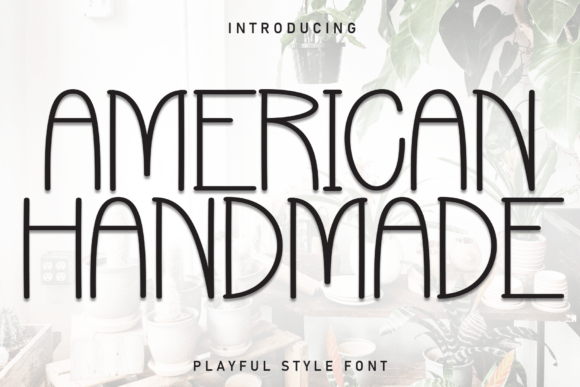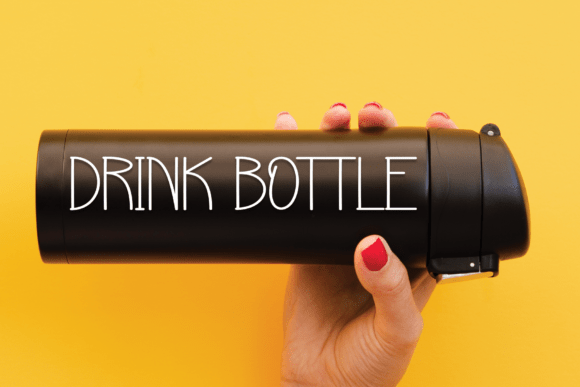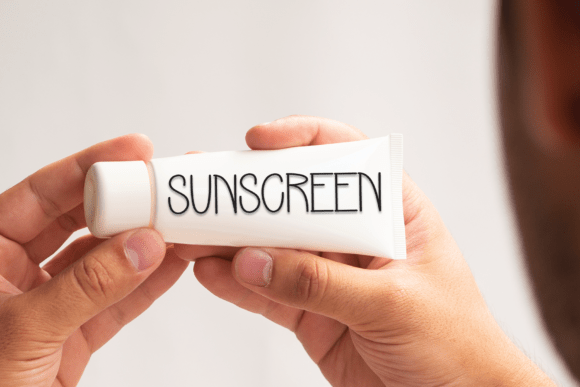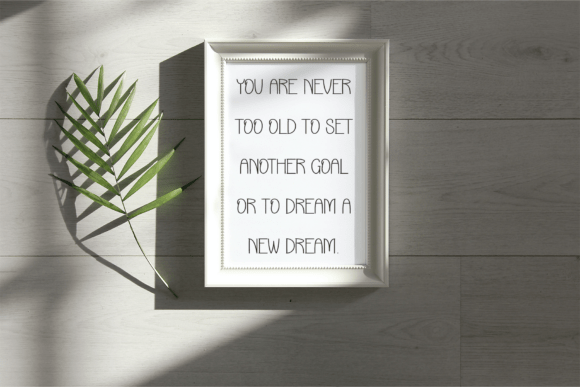
American Handmade Font
About the American Handmade Font
Let us introduce you to American Handmade Font, where timeless design meets modern craftsmanship. American Handmade is a sleek and casual display font that blends handmade character with modern charm. Its smooth curves and evenly spaced letters make it great for artisan branding, labels, and DIY-themed projects. A font that feels handcrafted yet clean and professional.
American Handmade Font Usage Examples
American Handmade Font Example